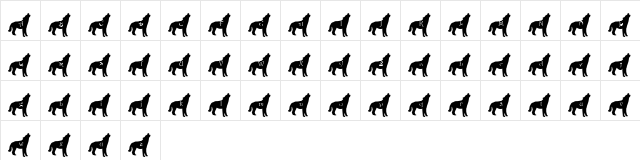
pf_wolf for Angelic Regular
Design Context for pf_wolf for Angelic Typeface
pf_wolf for Angelic is a composed and adaptable typeface that performs quietly and consistently across a wide range of design contexts.